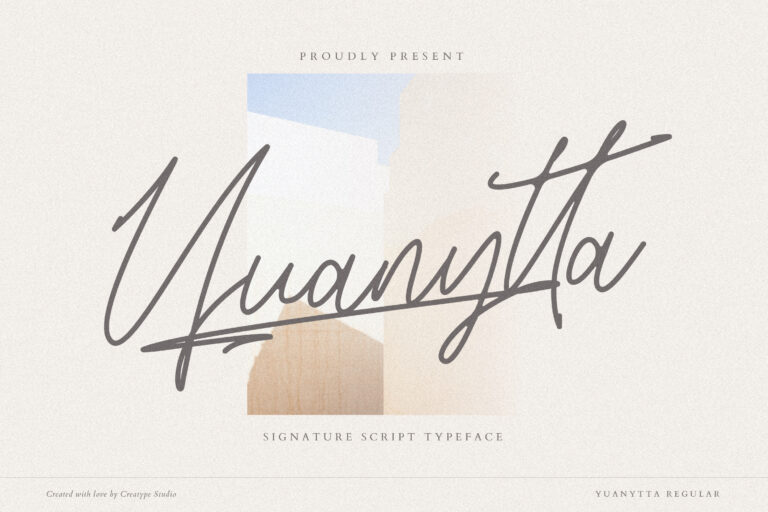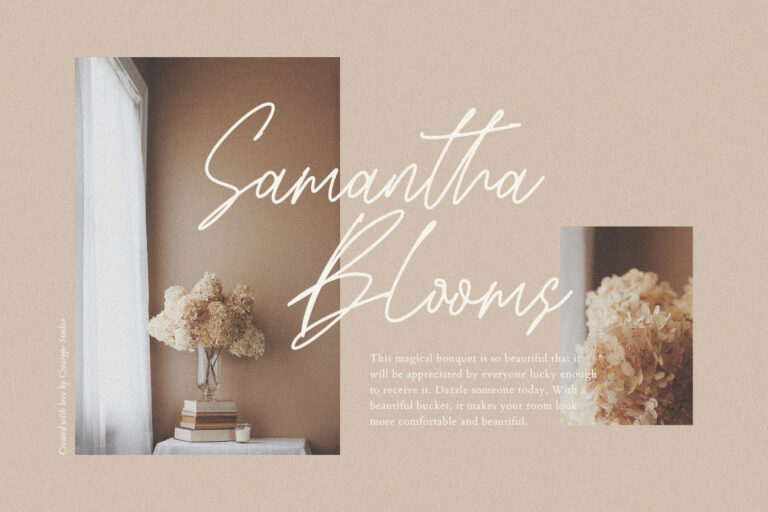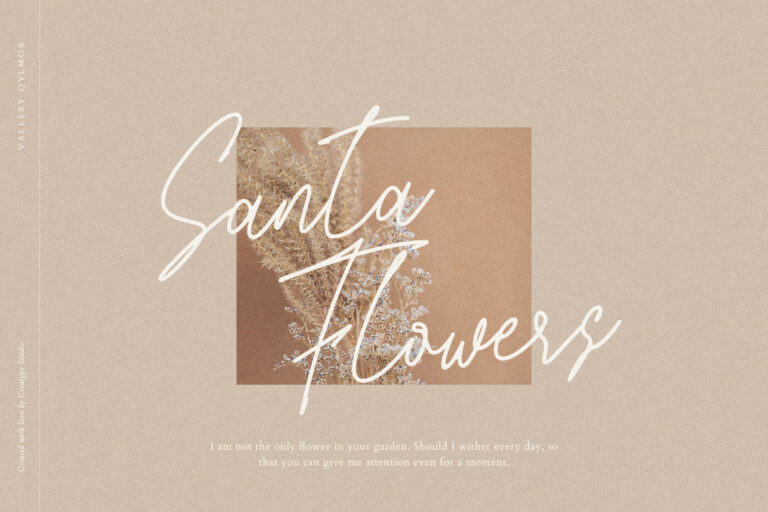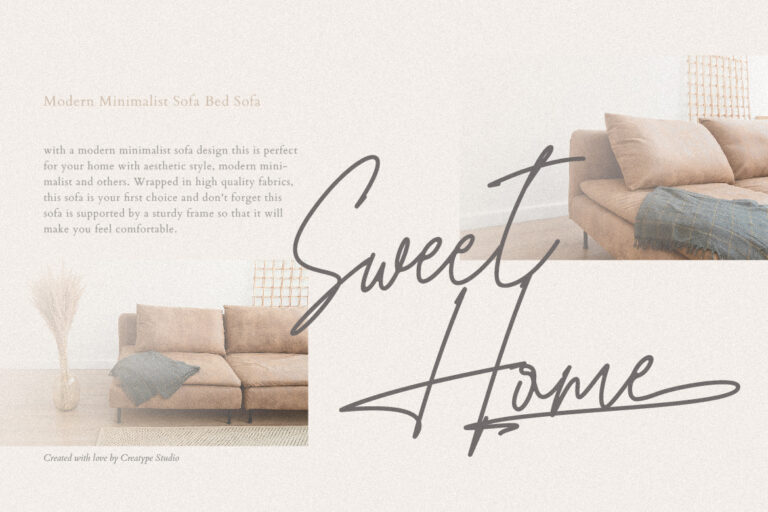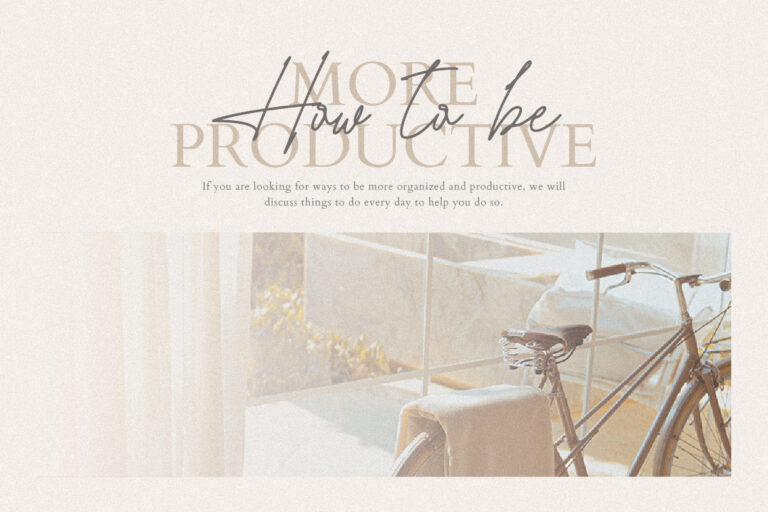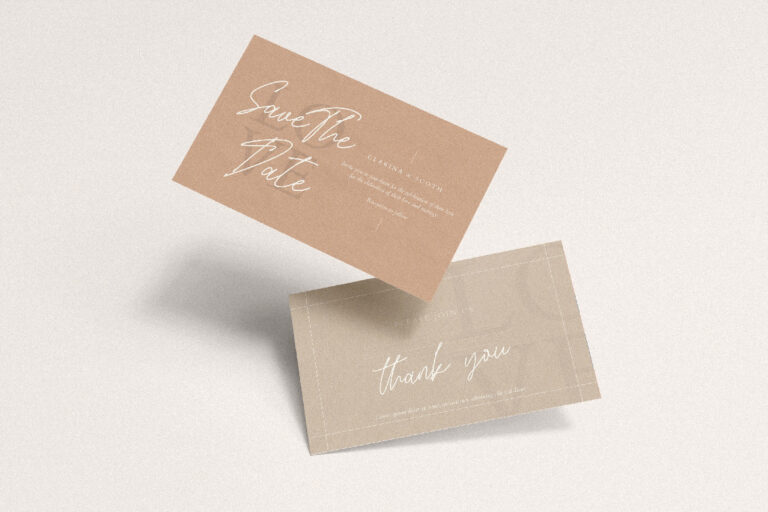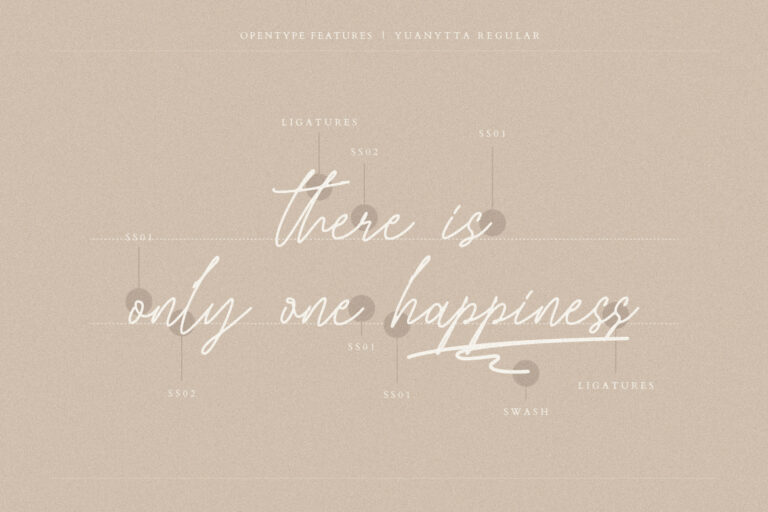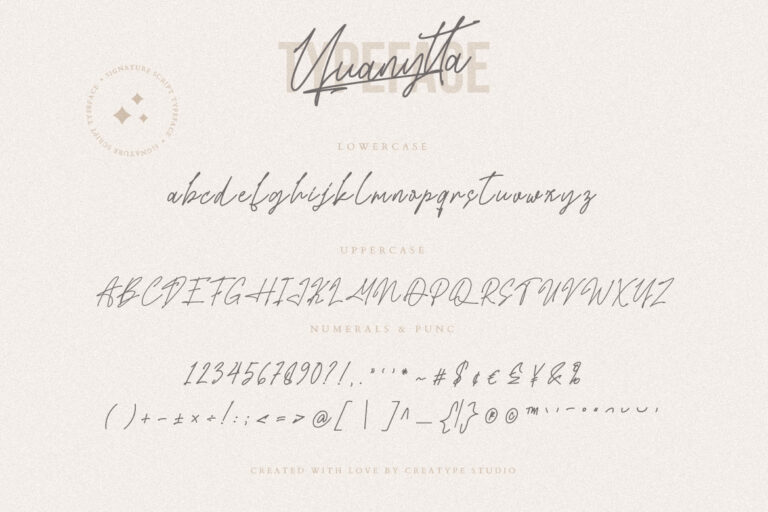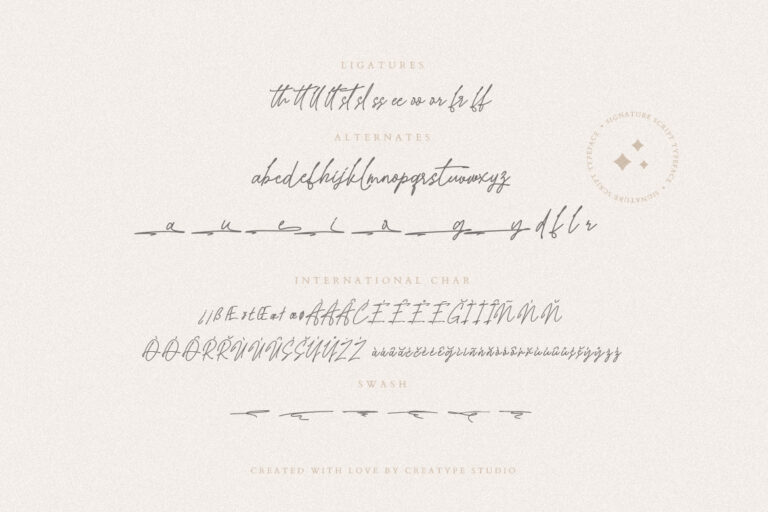
Yuanytta Signature Script
Yuanytta is a lovingly crafted Signature script typeface that lends a natural feel to all your designs. This font looks very natural, perfect for all your large projects that require a handwritten touch.
Yuanytta is perfect for branding projects, logo, wedding designs, social media posts, advertisements, product packaging, product designs, label, photography, watermark, invitation, stationery and any projects that need handwriting taste.